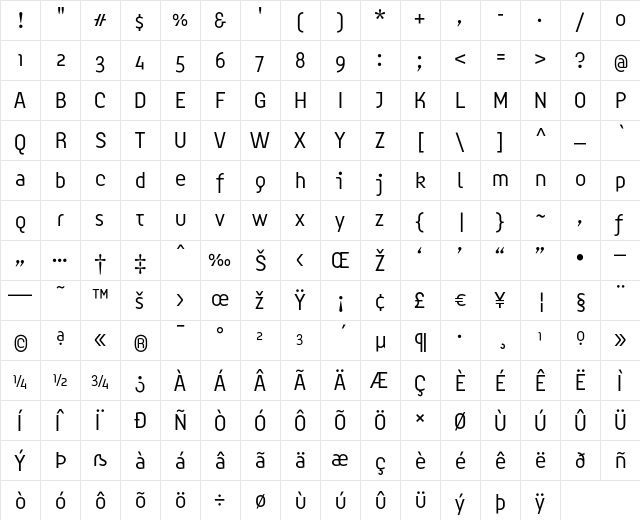
OgilveThin Regular
Design Context for OgilveThin Typeface
OgilveThin offers clean, dependable letterforms without strong stylistic allegiance, making it a practical choice for designers who need flexibility. Its slender proportions lend an understated elegance to any composition.
Pro Tip: Pair OgilveThin with a font of contrasting weight or personality to build a more expressive typographic hierarchy.